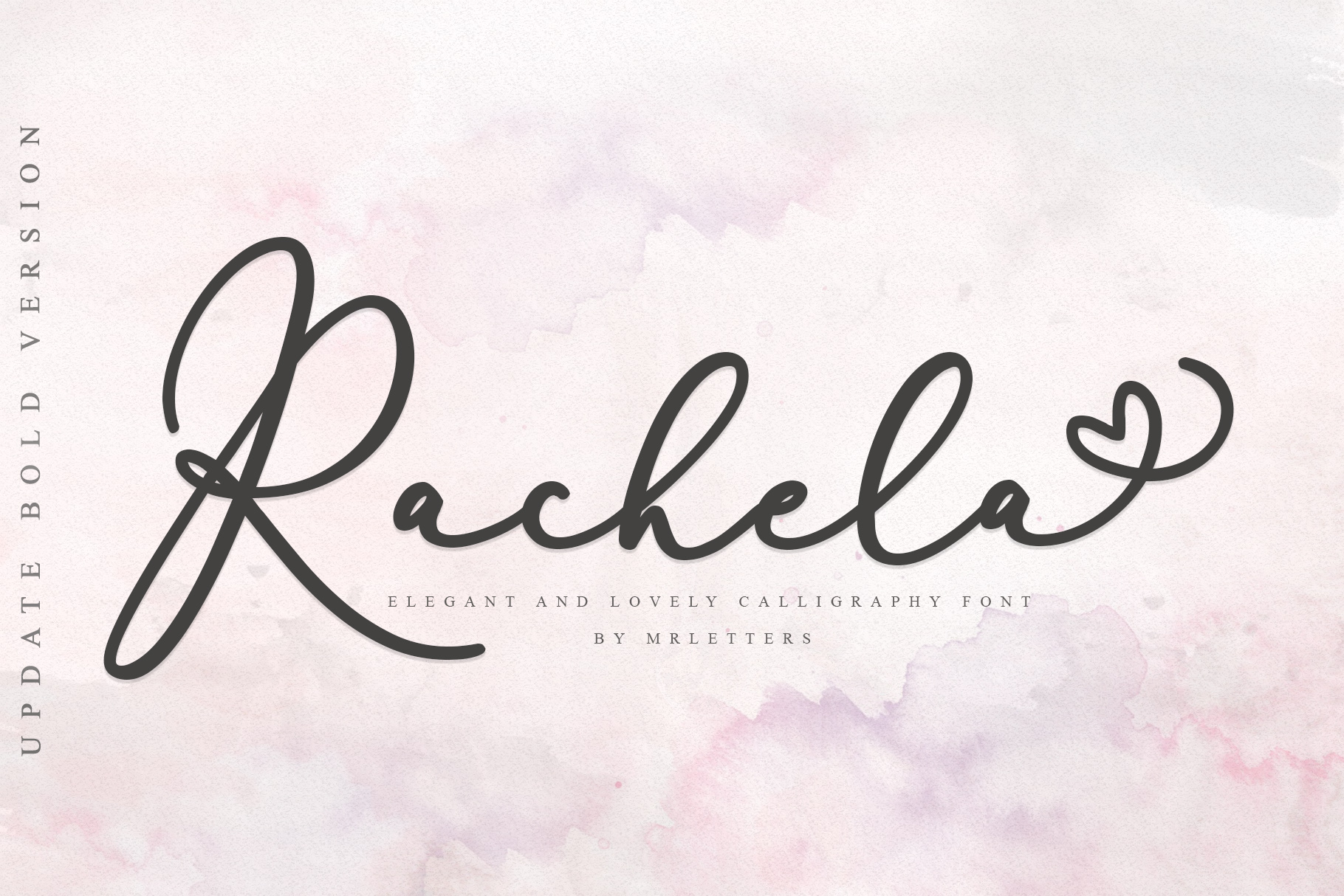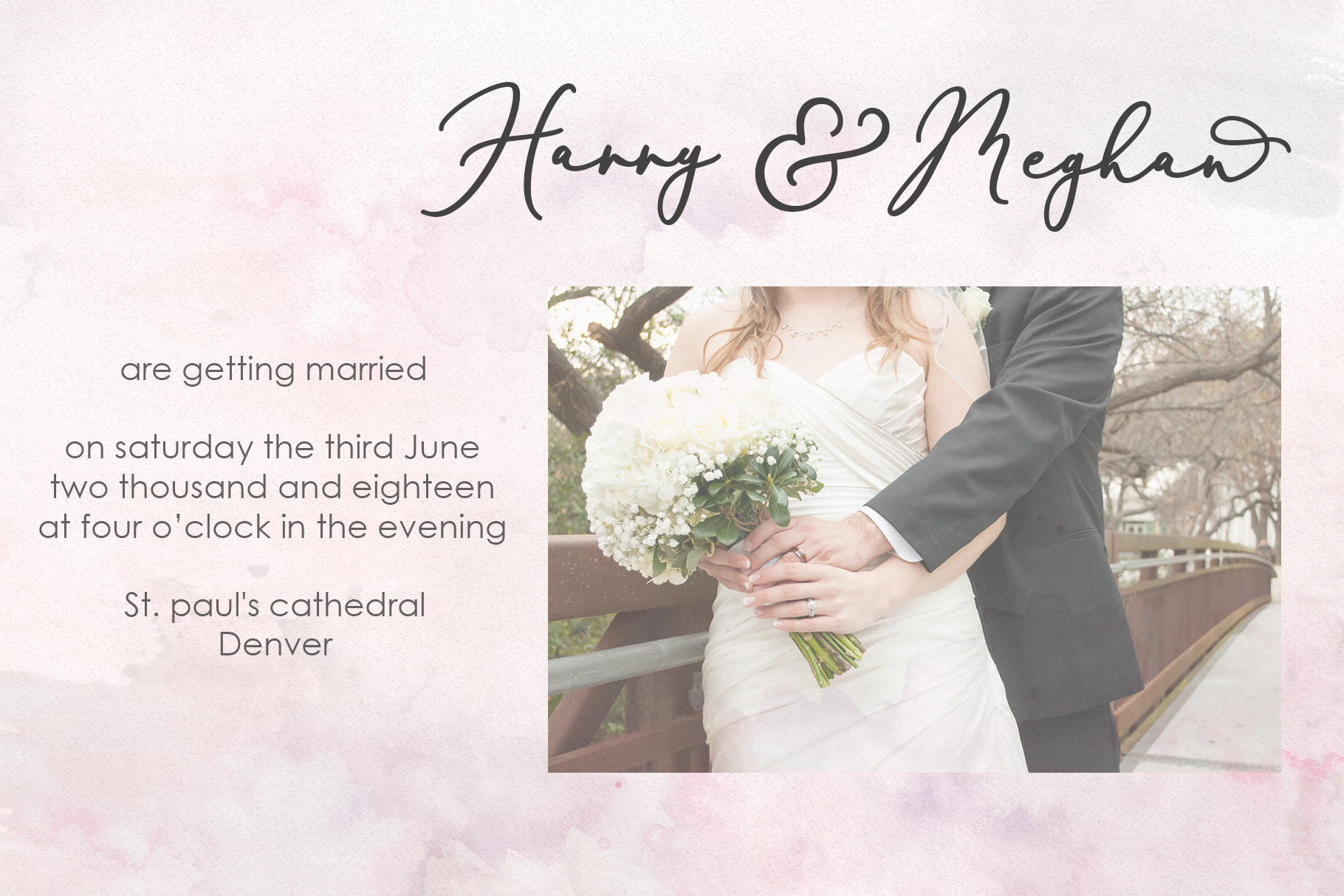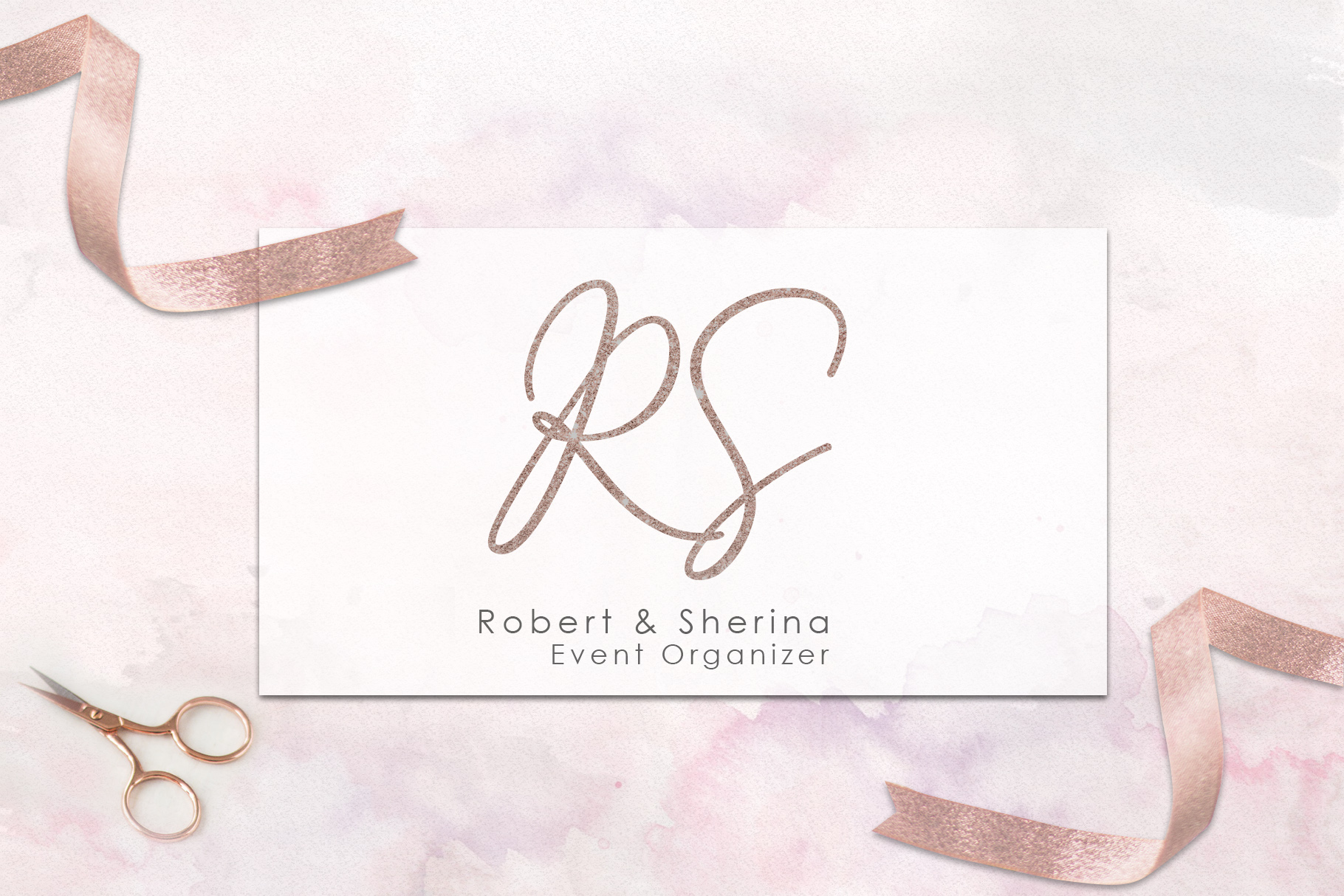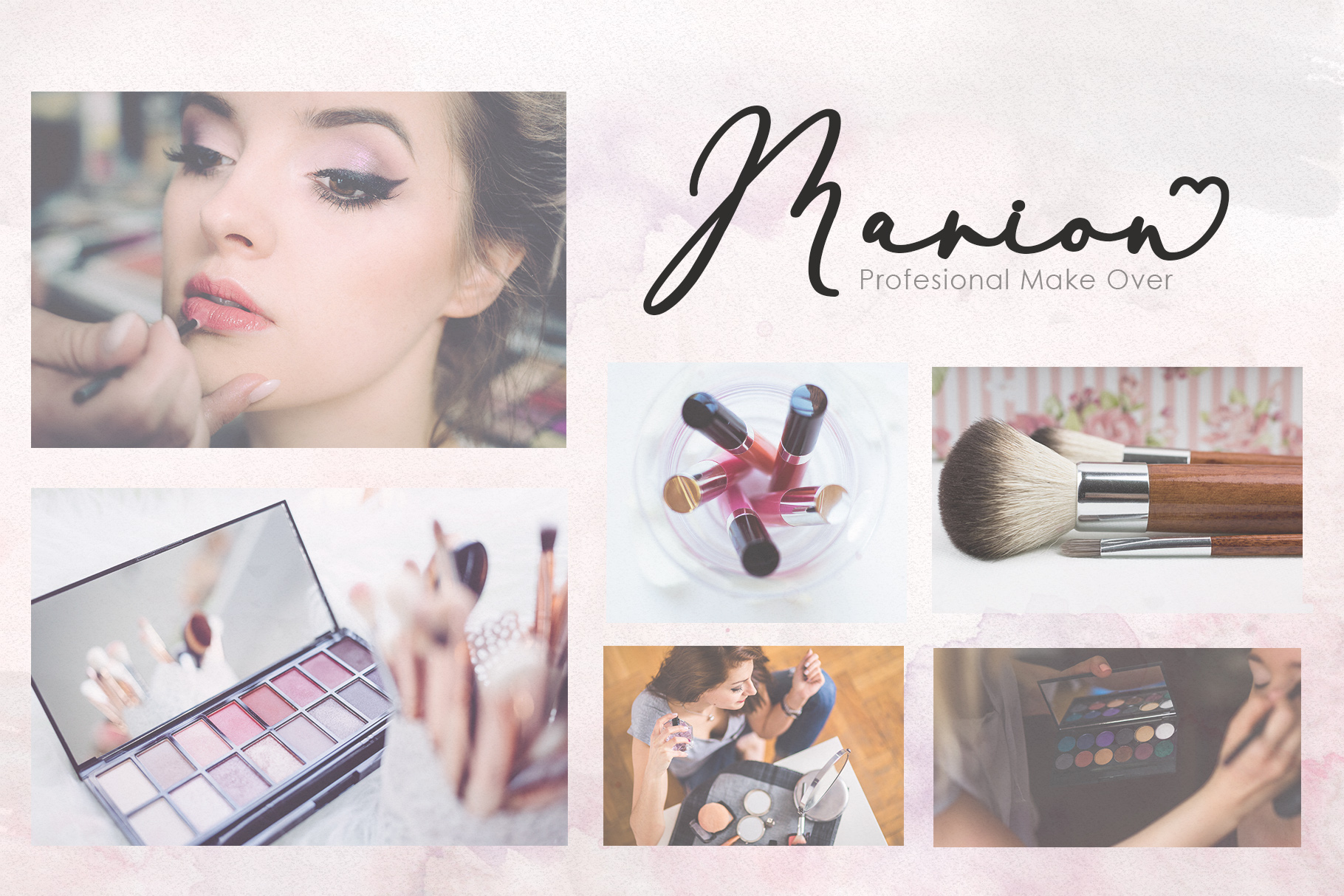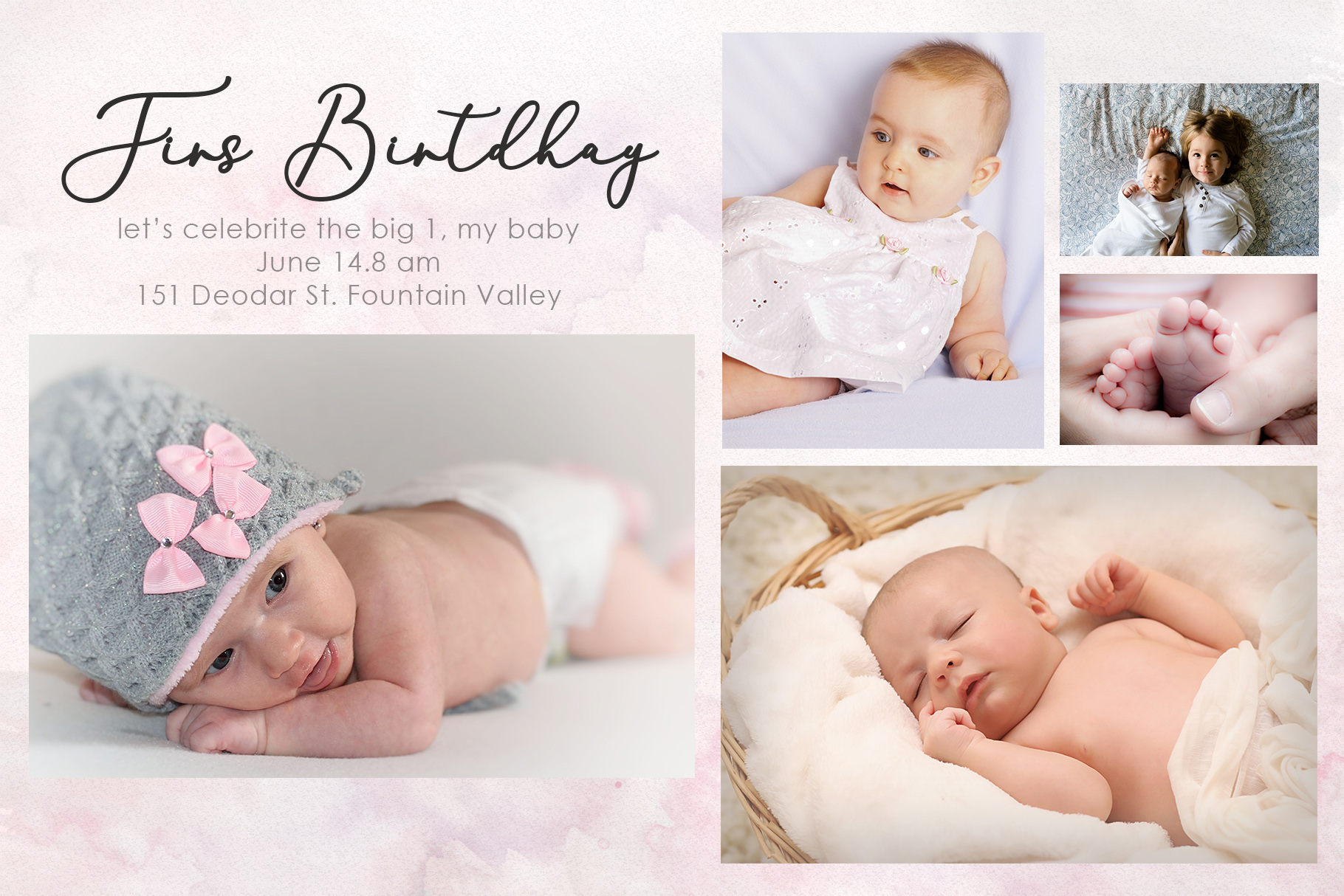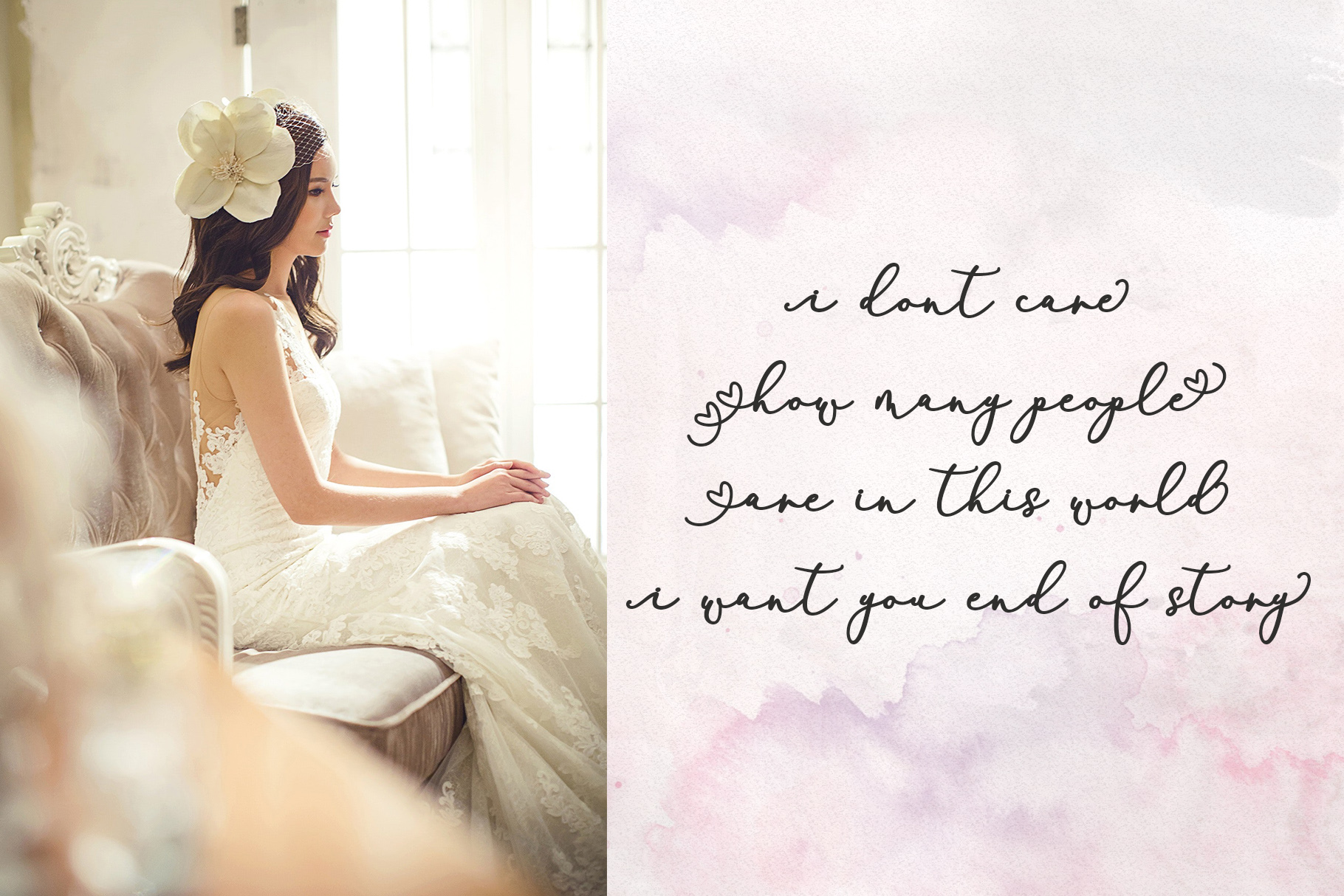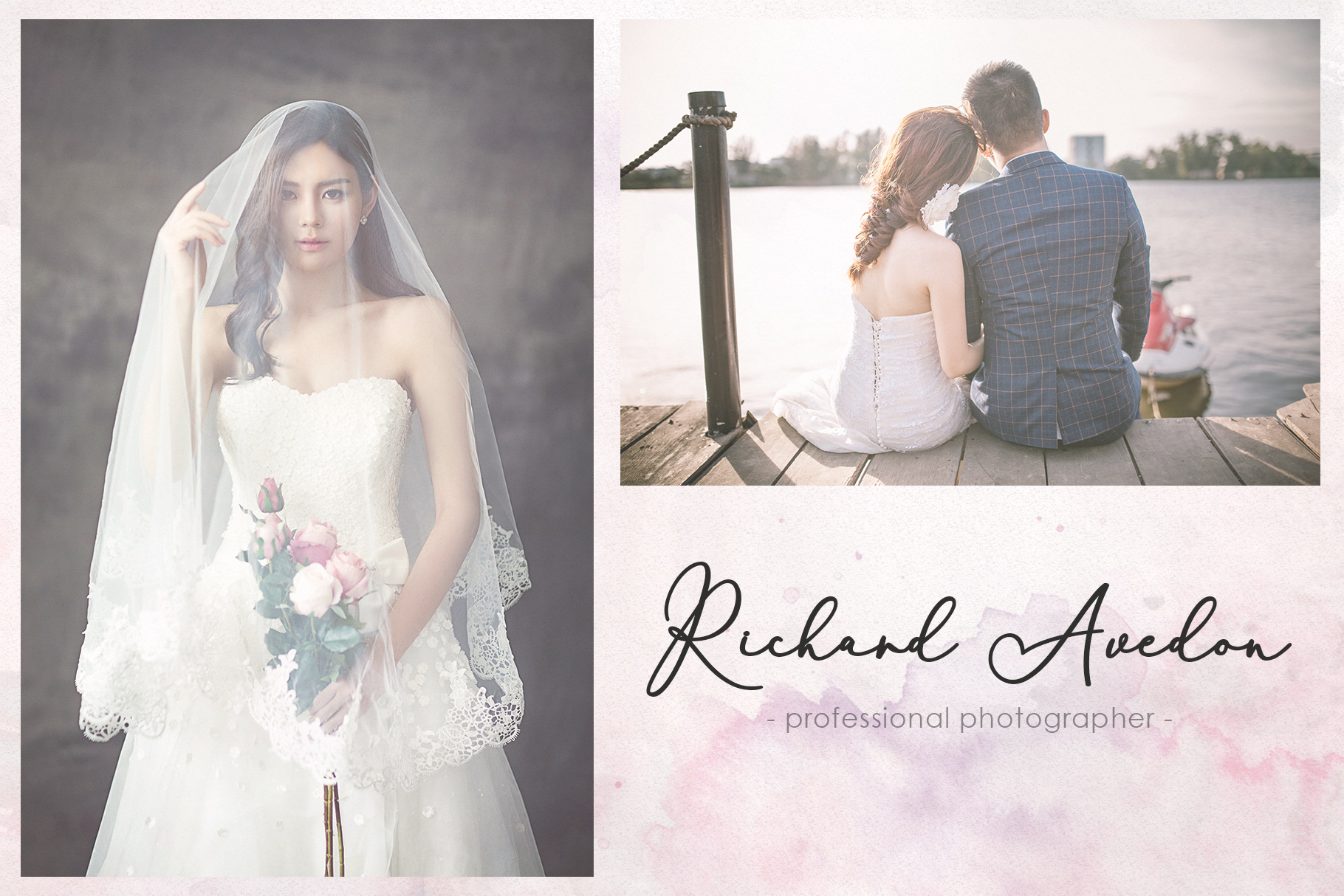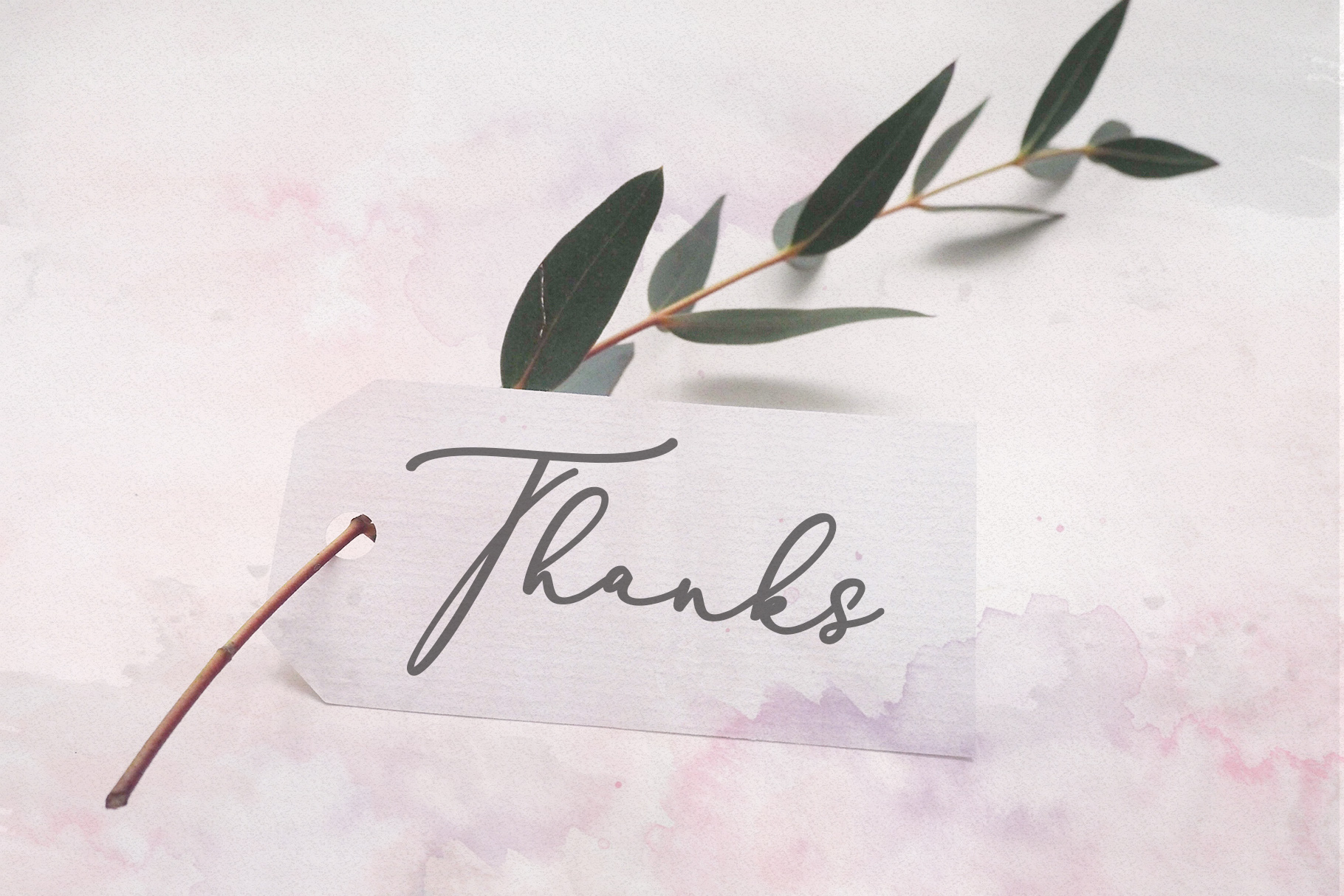
Rachela Font
About Rachela Font
Rachela is a beautiful, bold script font that was created to meet your needs in creating beautiful and elegant designs. This font comes with several styles so you can create limitless, stunning designs.